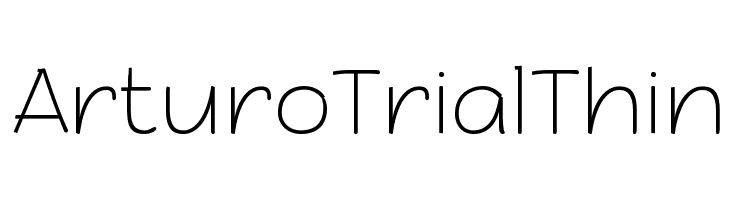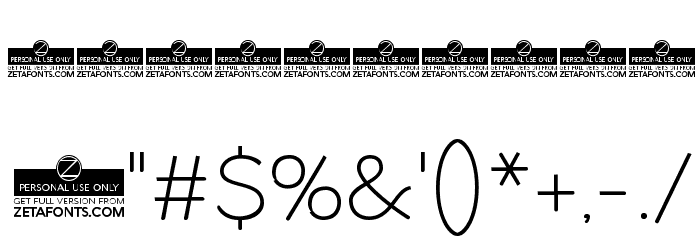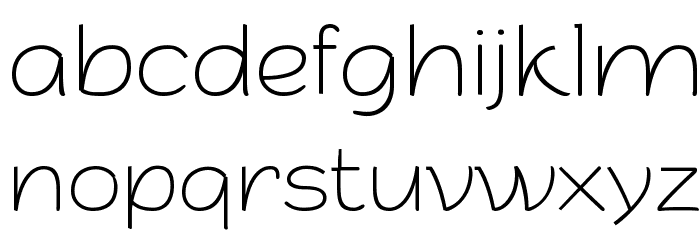
Arturo Trial Thin Font
Arturo Trial Thin Description
This font presents a sleek and modern aesthetic with its thin, clean lines and minimalistic design. The characters are well-proportioned, offering a sense of elegance and sophistication. The uppercase letters maintain a consistent height, while the lowercase letters are slightly rounded, adding a touch of softness to the overall appearance. The numerals and special characters are designed to complement the alphabet, ensuring a cohesive look across all text. This font is ideal for projects that require a contemporary and refined touch.
A sleek, modern font with thin lines and a minimalist design from Uncategorized fonts.
- Proposed Projects: Ideal for branding, editorial design, websites, and minimalist graphic design projects.